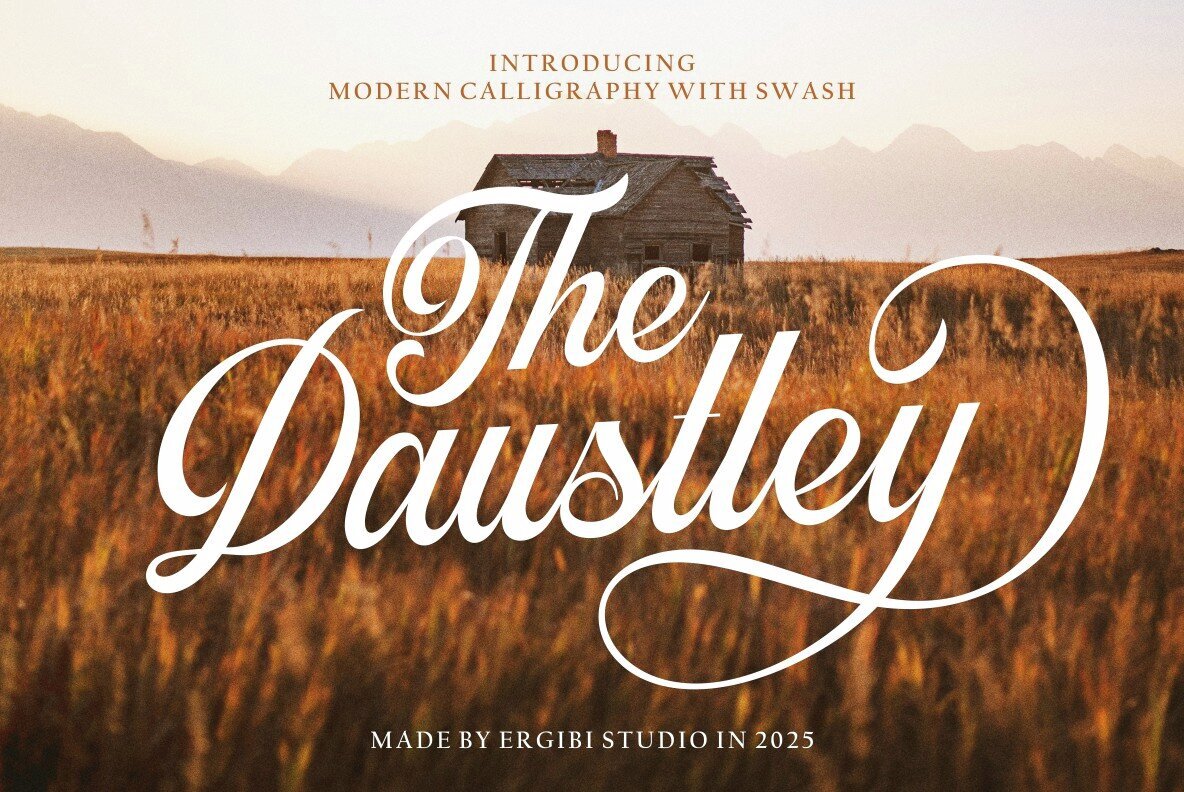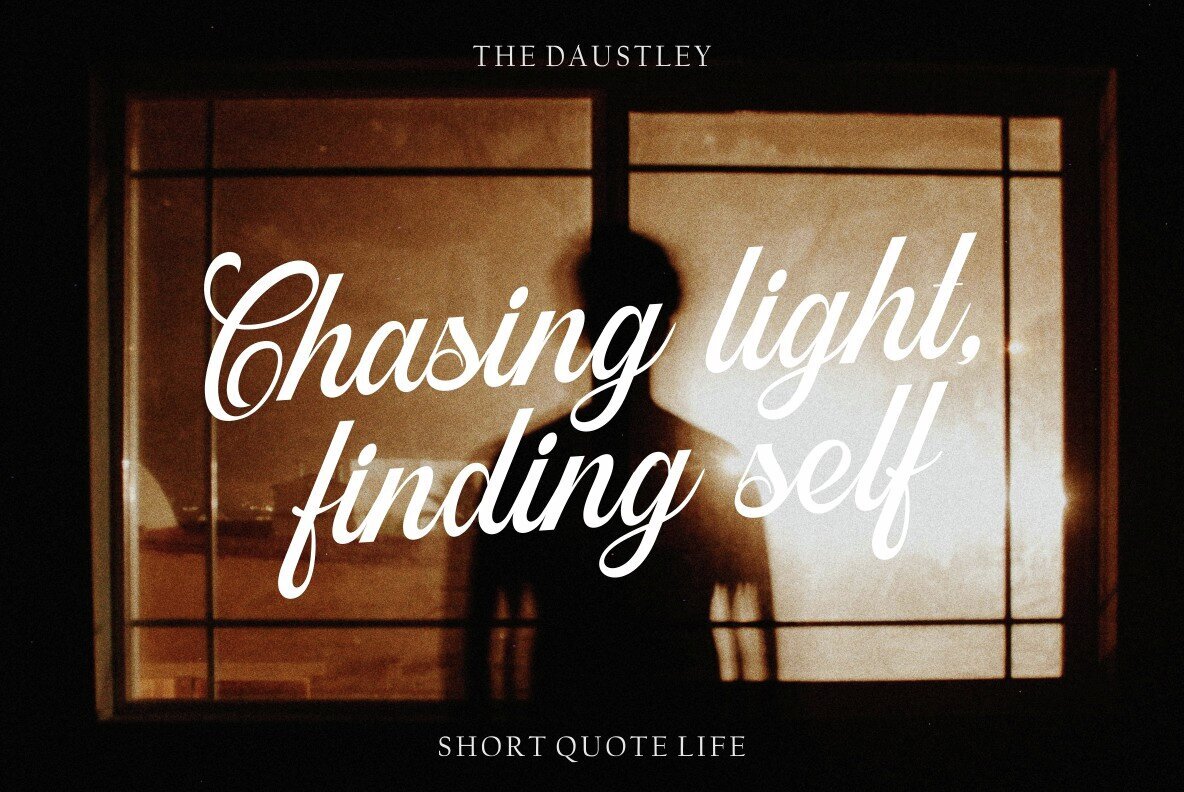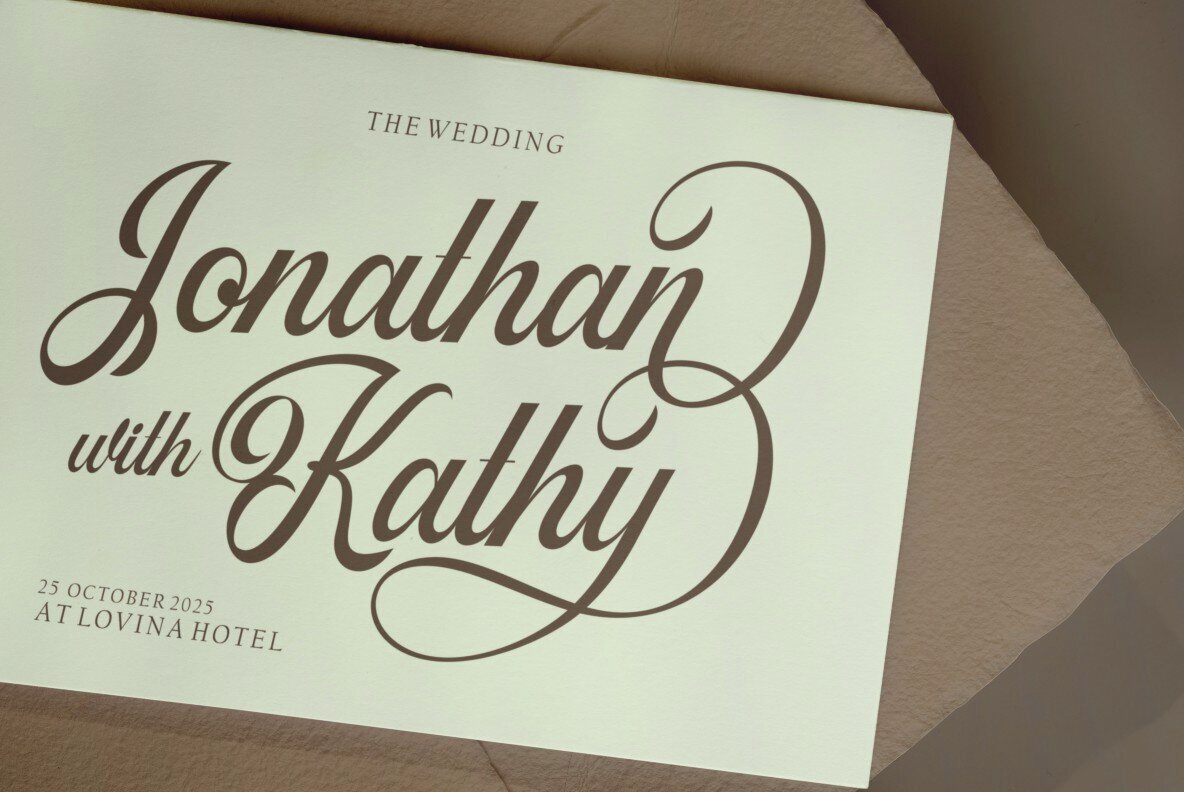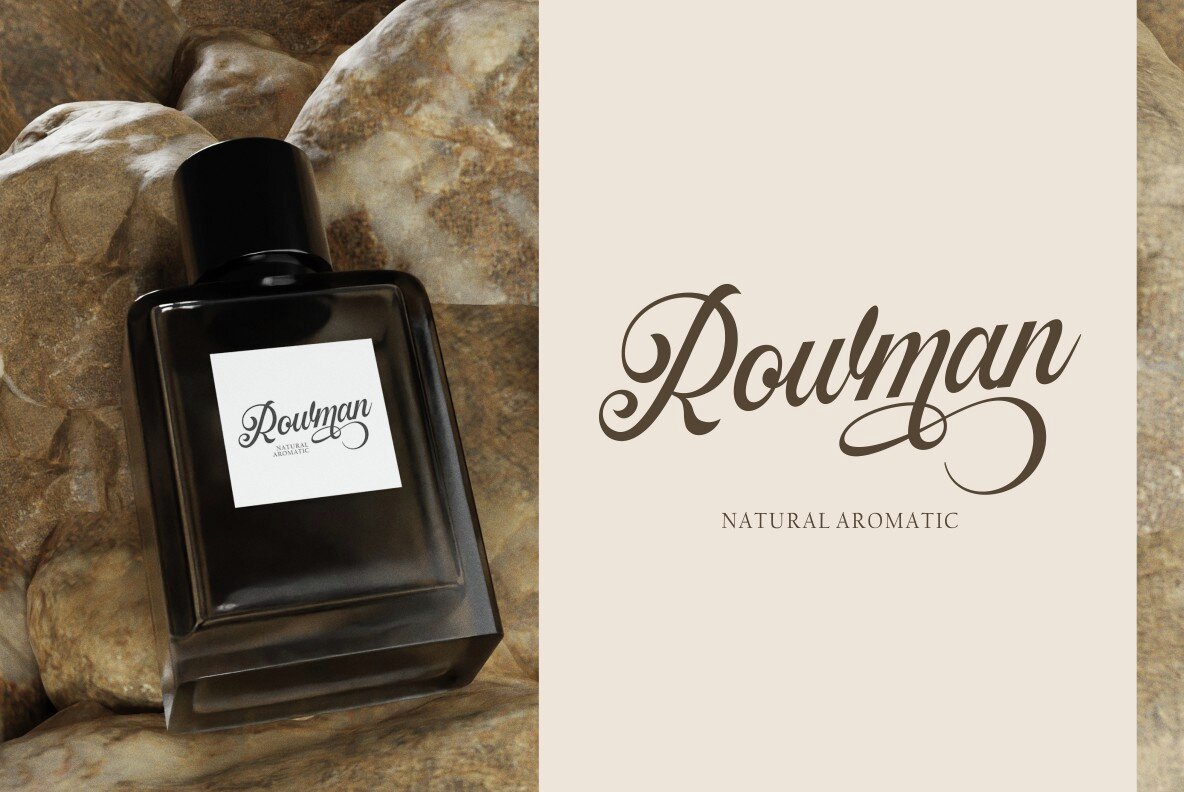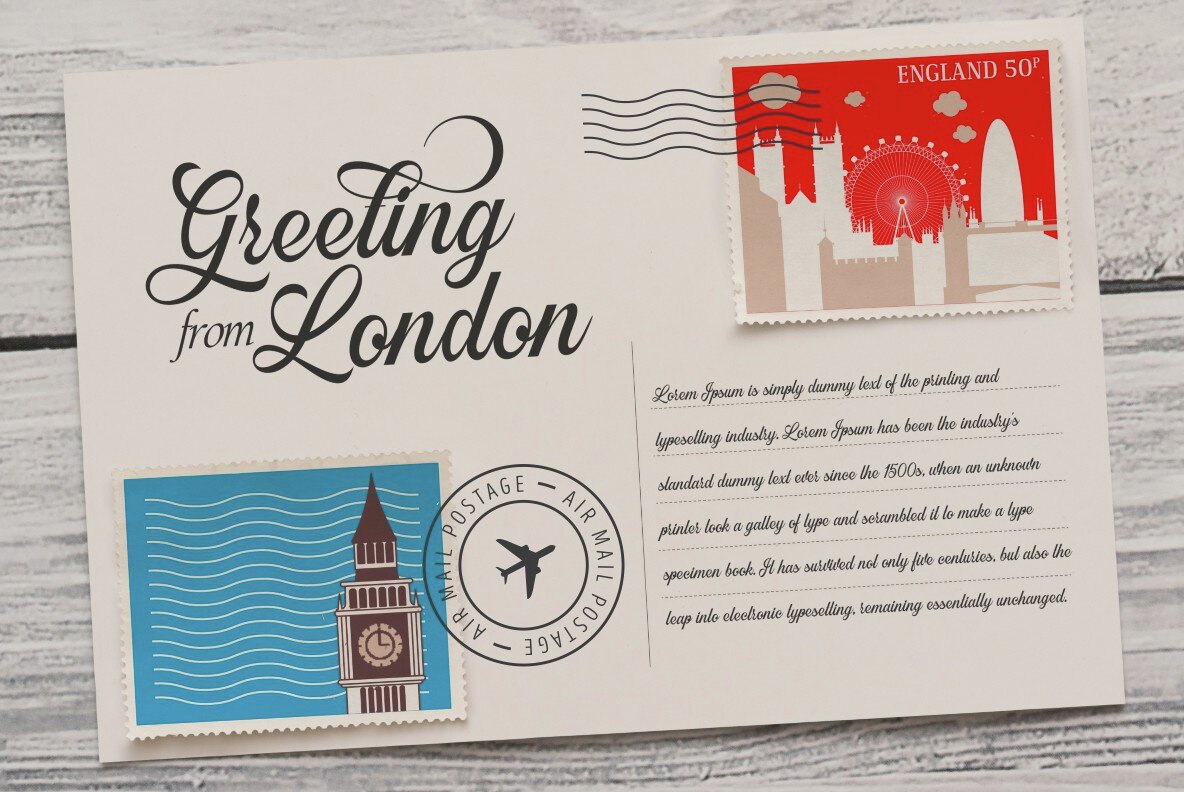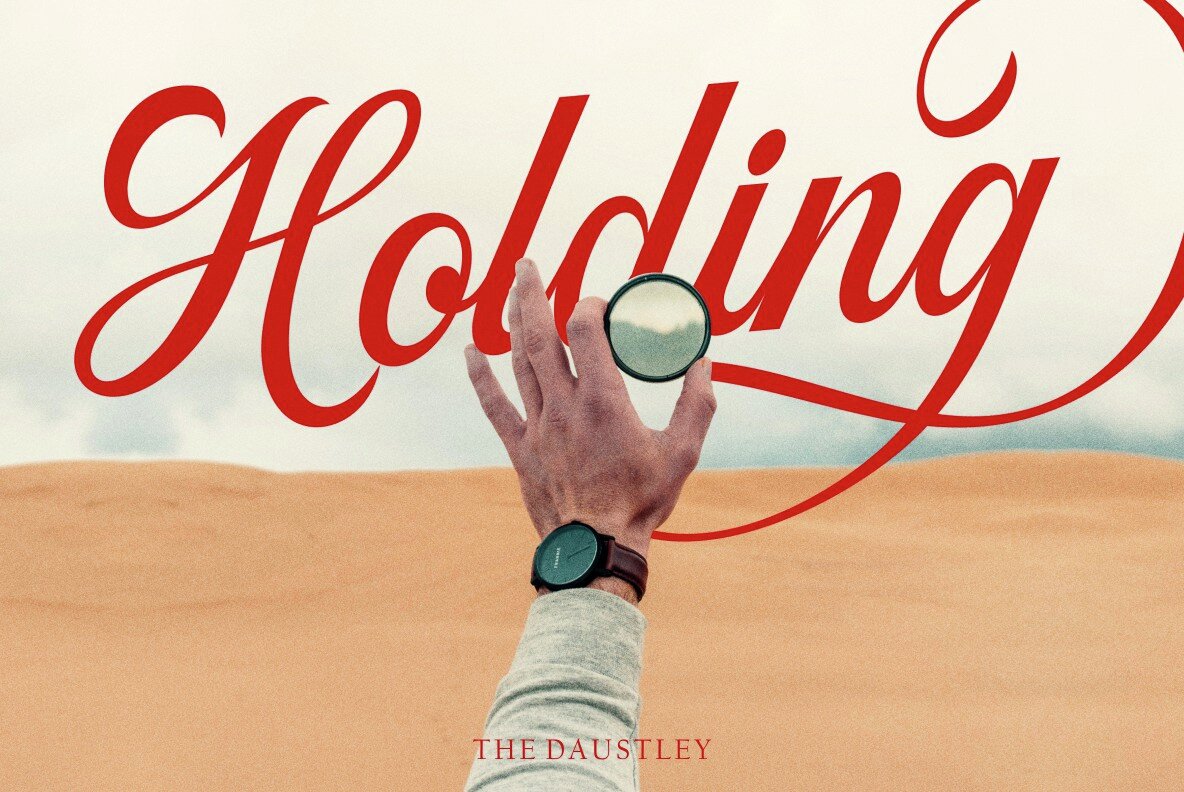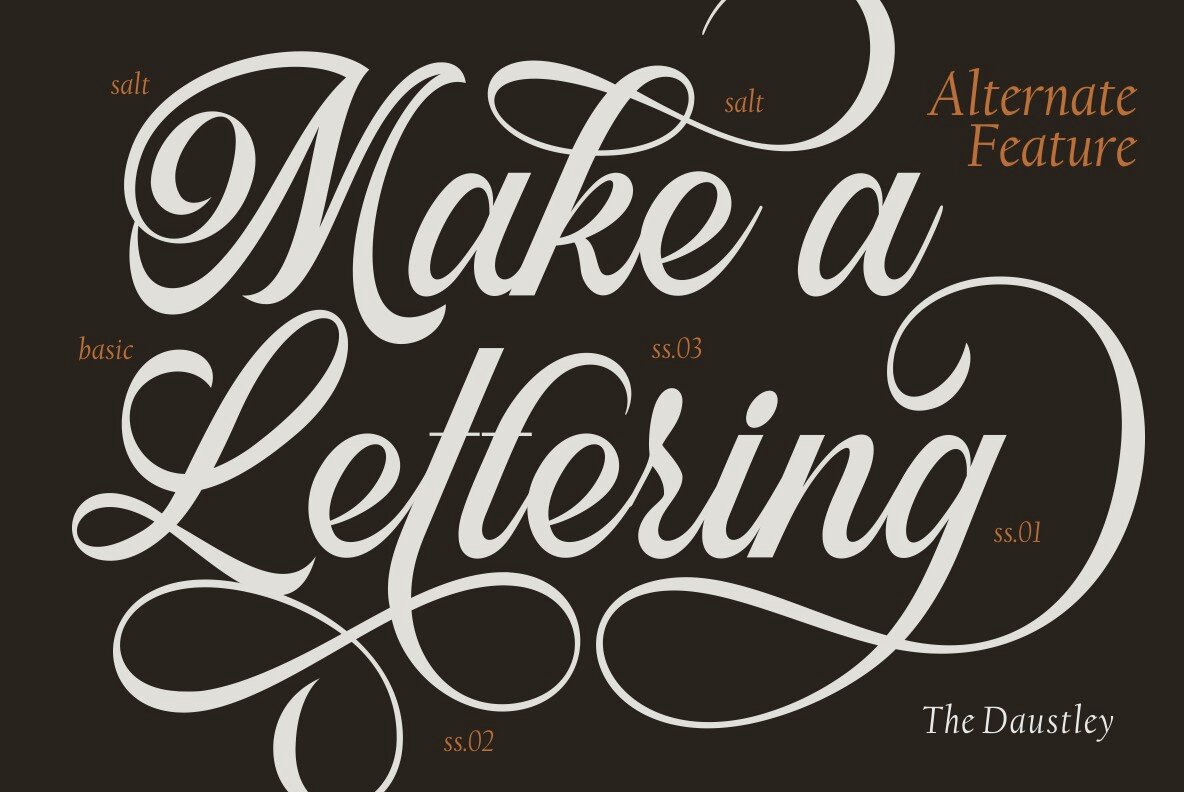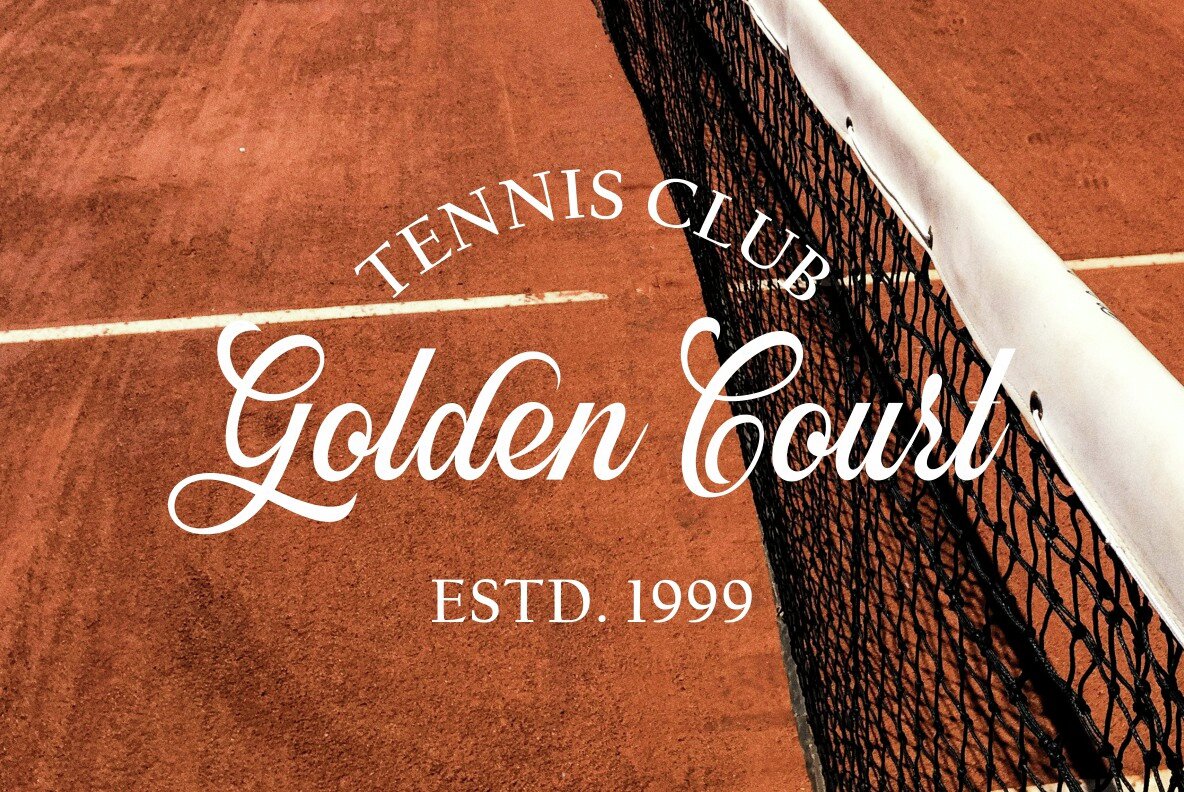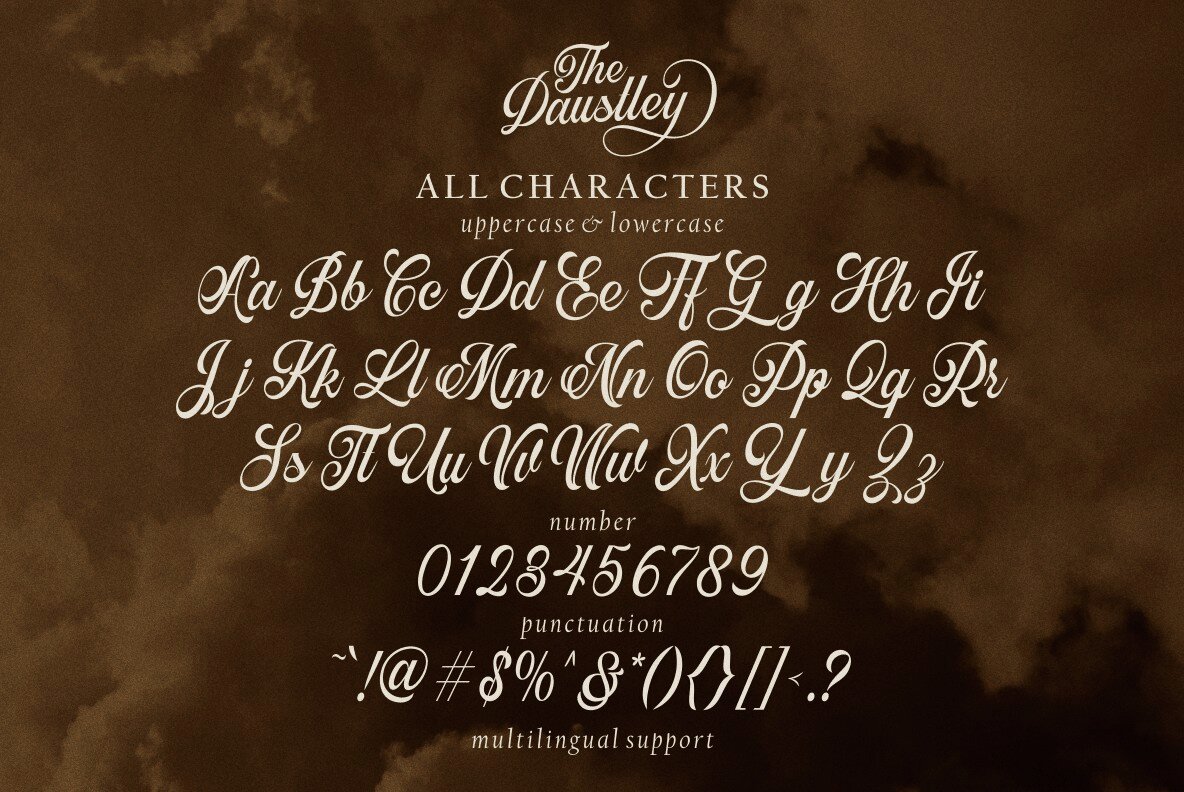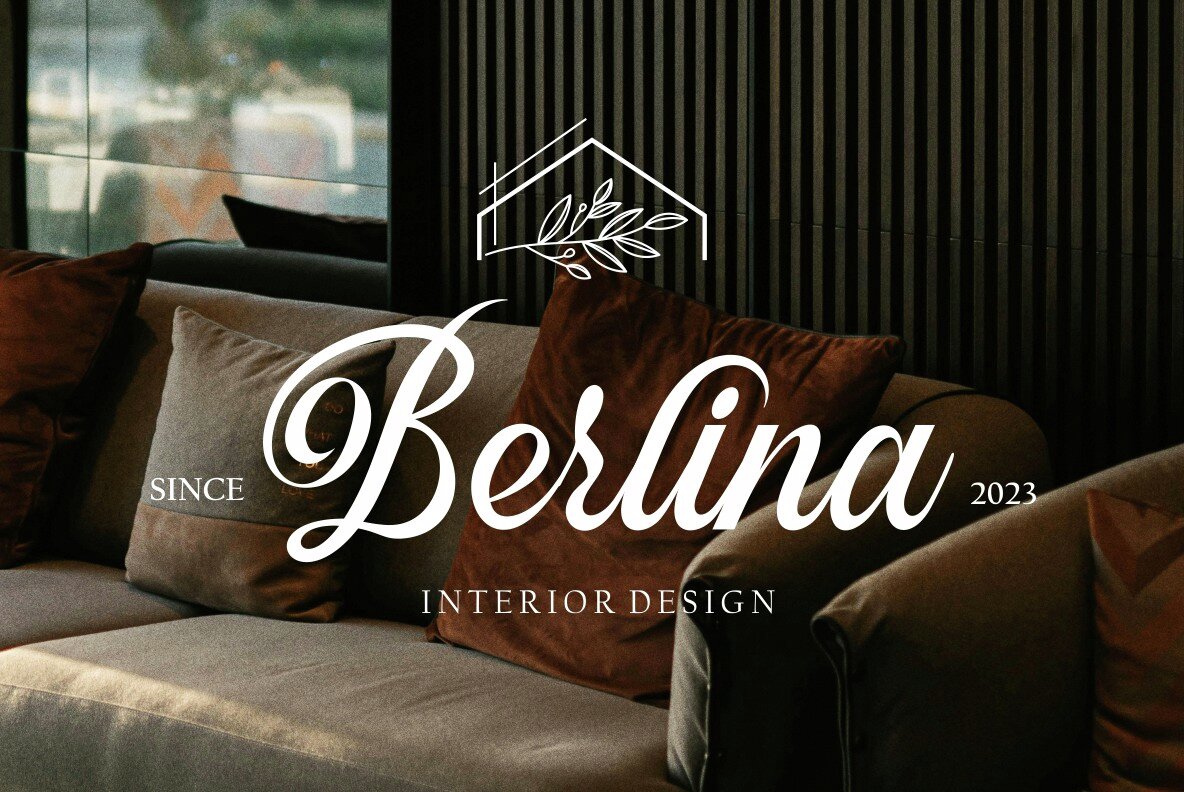
Daustley Font
Daustley
Daustley introduces an elegant blend of modern calligraphy with precise, flowing strokes and refined letterforms. This font offers a subtle charm well-suited to projects demanding an expressive, sophisticated look. Its delicate curves and carefully balanced details create a polished and upscale impression across a wide range of design applications. With a variety of alternate characters, Daustley lets you explore customized typography, adding a personal signature to every creation. Whether you're designing wedding invitations, branding elements, logos, or striking social media graphics, this typeface ensures each composition feels distinct and graceful.Daustley Modern Calligraphy Font